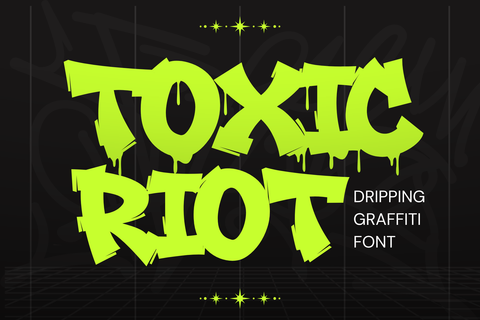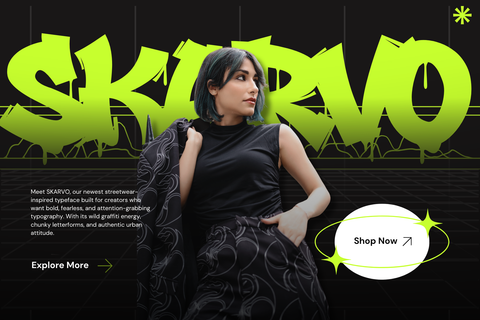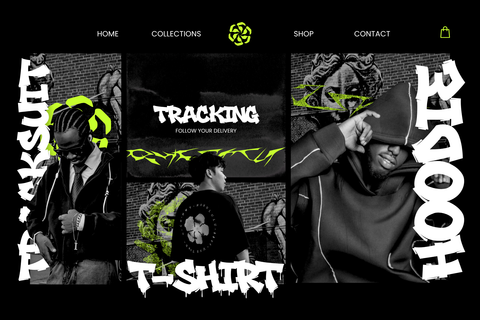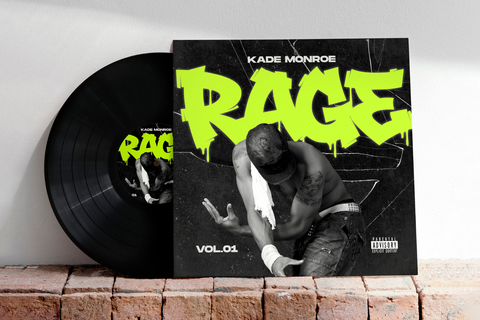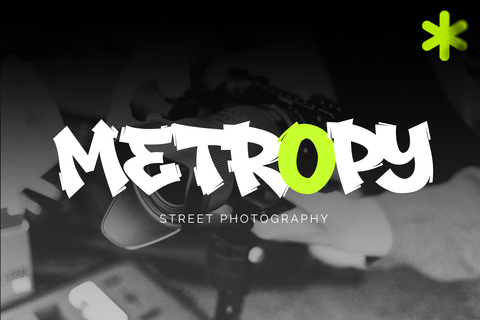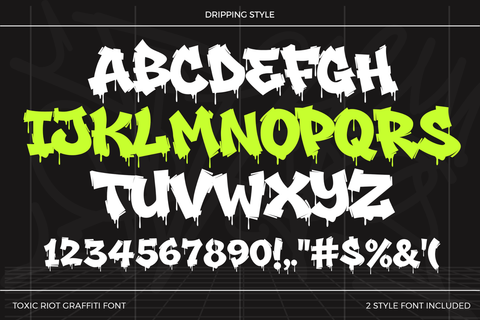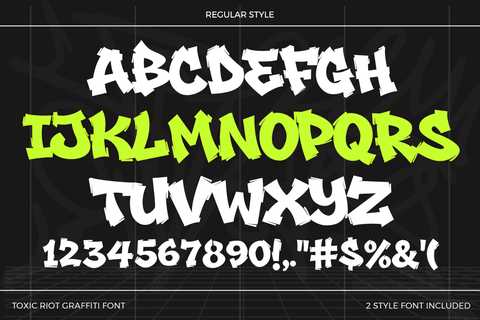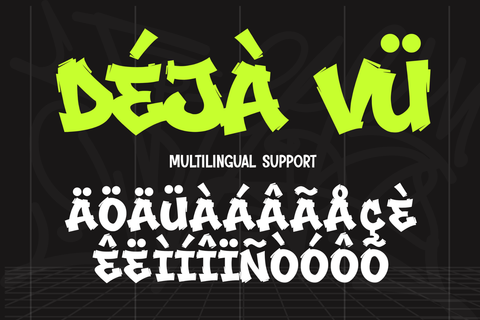
Toxic Riot - Wild Dripping Graffiti Font
Toxic Riot is a bold dripping graffiti display font inspired by authentic street art, hip hop culture, and urban creativity. Designed to make every headline stand out, this typeface features two expressive styles—Regular and Dripping—giving designers the flexibility to create clean graffiti lettering or dramatic paint-drip effects. Its thick letterforms and handcrafted details deliver strong visual impact while maintaining excellent readability for logos, posters, album covers, streetwear branding, gaming graphics, YouTube thumbnails, social media campaigns, merchandise, stickers, and advertising materials. Toxic Riot includes uppercase characters, numbers, punctuation, and multilingual support, making it suitable for a wide range of international design projects. Whether you're building a bold brand identity, promoting a music event, designing apparel graphics, or creating eye-catching digital content, Toxic Riot brings authentic urban energy and unmistakable graffiti style to every composition. It is the perfect display font for designers looking to create modern, powerful, and unforgettable typography with genuine street-inspired character.